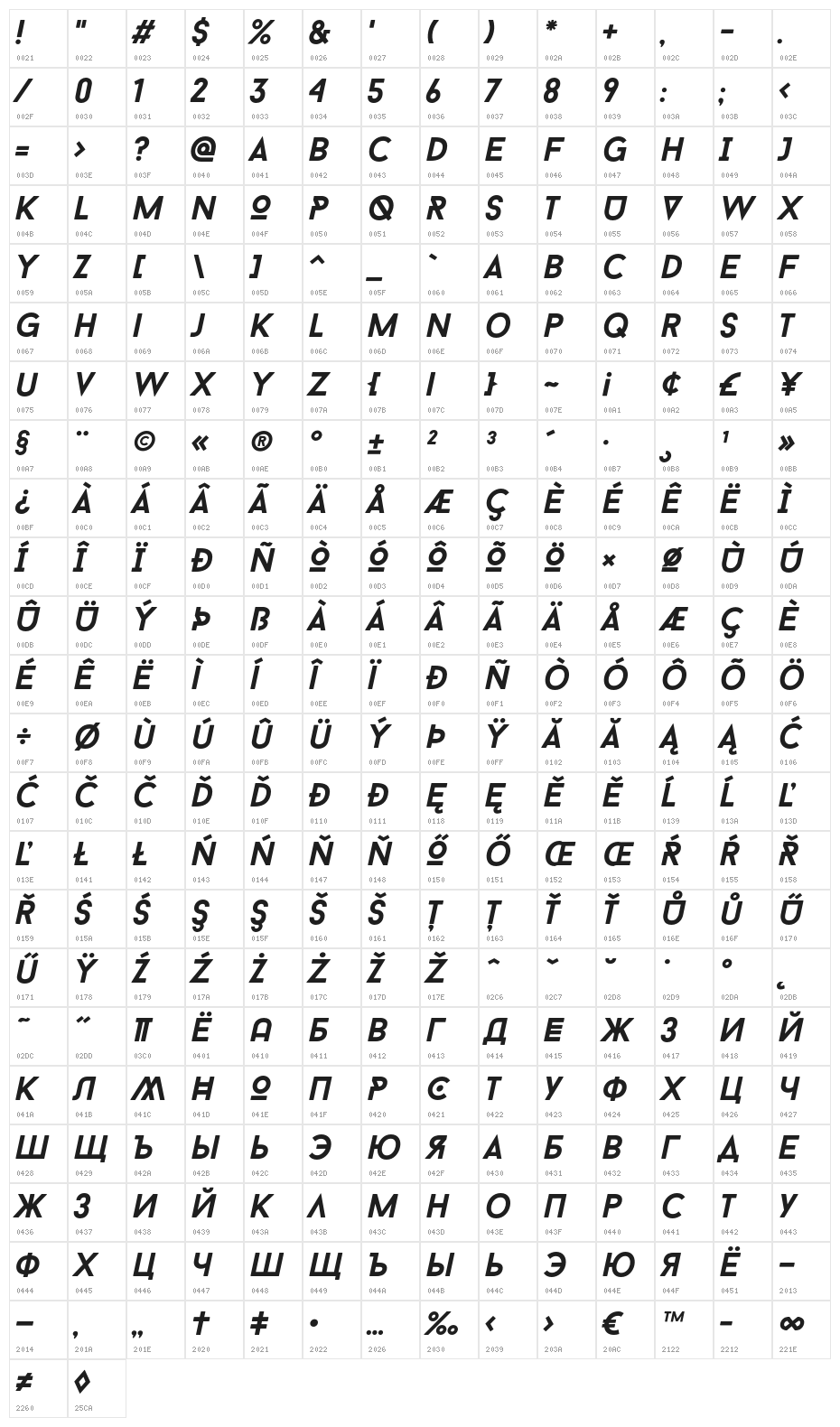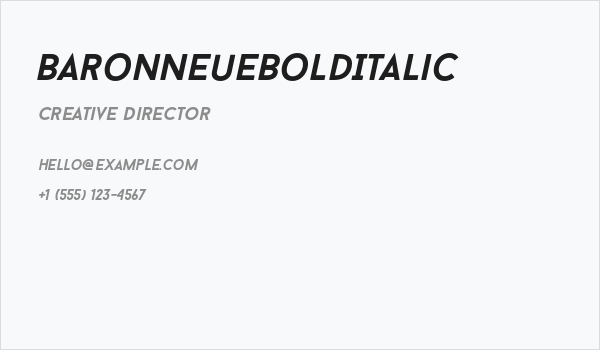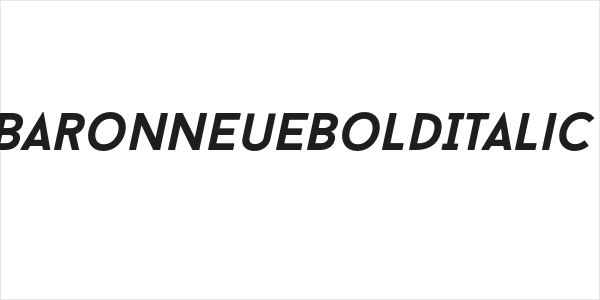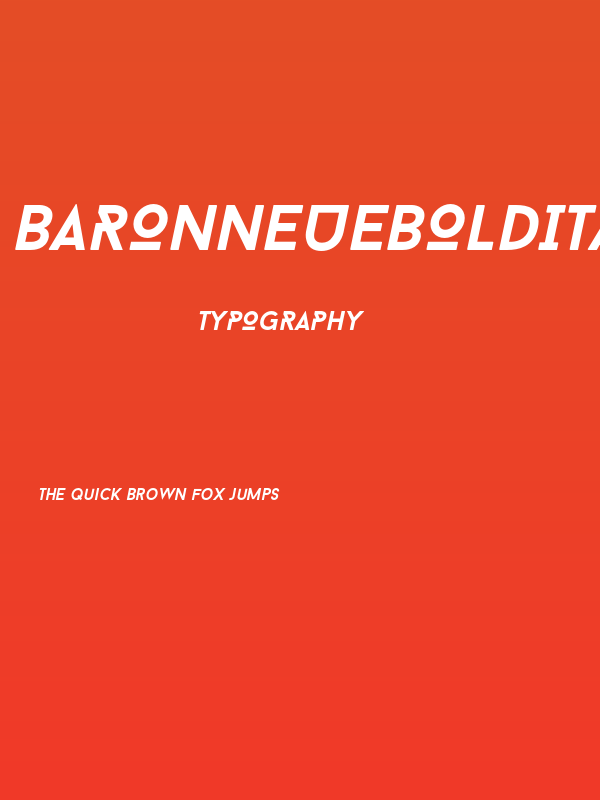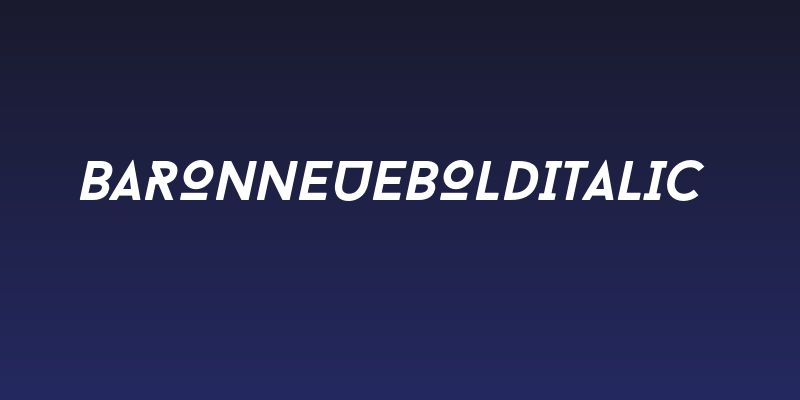
BaronNeueBoldItalic Font
BaronNeueBoldItalic Description
This font exhibits a bold and italicized style with a modern and sleek appearance. The characters are slightly condensed, giving it a compact look while maintaining readability. The strokes are consistent in weight, providing a uniform and cohesive appearance across all characters. The uppercase and lowercase letters are well-proportioned, with a slight slant that adds a dynamic and forward-moving feel. The numerals and special characters are designed to match the overall style, ensuring a harmonious look throughout. This font is versatile, suitable for both digital and print media, and can be used to create a strong visual impact.